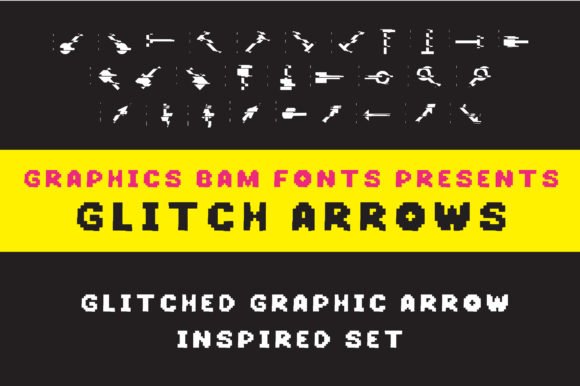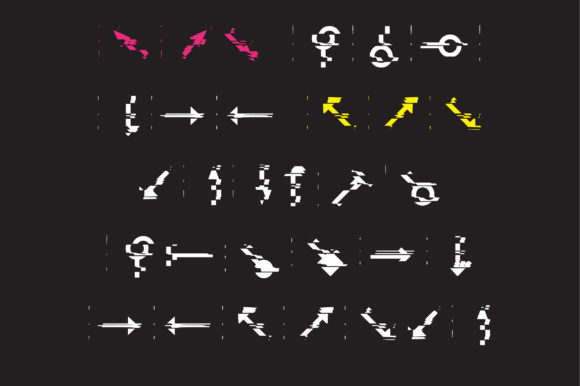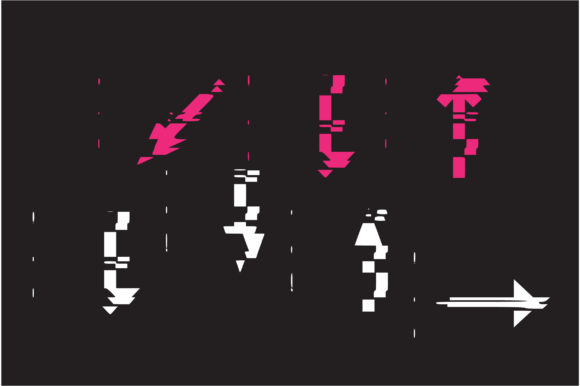
Get Ready to Level Up Your Designs
Have you ever stared at a blank canvas, waiting for that elusive spark of creativity to strike? For designers, those moments can be a thrill and a challenge. It’s like waiting for a game to load, and when it finally does, you get that rush of excitement. That’s exactly what happened when we discovered the Glitched Arrows Font.
This cool, uniquely shaped, pixelated dingbats font is the perfect addition to any design project. Add a distorted and trendy touch to your work with its quirky, glitchy aesthetic. Whether you’re working on a futuristic video game, a retro-themed website, or a bold graphic novel, the Glitched Arrows Font is sure to bring your designs to life.
As a designer, you know that the right font can make all the difference. With the Glitched Arrows Font, you’ll have a versatile tool at your disposal to create eye-catching, one-of-a-kind designs that set you apart from the crowd.
Glitched Arrows Font Key Features
- Font Family: Glitched Arrows Font is a unique, hand-drawn font designed to resemble glitch art.
- Unique Characteristics: Glitched Arrows Font features distorted, pixelated arrow symbols, giving it a retro-futuristic feel.
Glitched Arrows Font Review
At first glance, I was intrigued by the unique aesthetic of the Glitched Arrows Font. The combination of distressed and futuristic elements creates an eye-catching effect that’s perfect for titles and headings.
Here’s what works well for this font: ✨
- Eye-catching and unique aesthetic that grabs attention
- Perfect for titles and headings to create a bold statement
- Works well for digital and futuristic-themed projects
- The font can be overwhelming for large blocks of text, making it difficult to read
- May not be suitable for projects that require a more traditional or classic look
- The distressed elements can be distracting for some users
Overall, the Glitched Arrows Font is a great addition to any designer’s toolkit, but it’s essential to use it sparingly and in the right context. With a bit of restraint, this font can add a touch of futuristic flair to your designs and leave a lasting impression.
Use the Glitched Arrows Font to add a touch of edginess to your designs.
Combine the font with other design elements, such as graphics and textures, to create a cohesive look.
The Glitched Arrows Font is perfect for:
– Gaming and tech-related designs
– Edgy and alternative fashion designs
– Retro and vintage-inspired designs
– Creating a bold and attention-grabbing visual effect